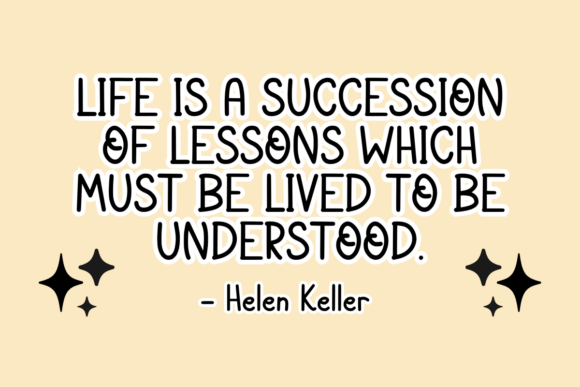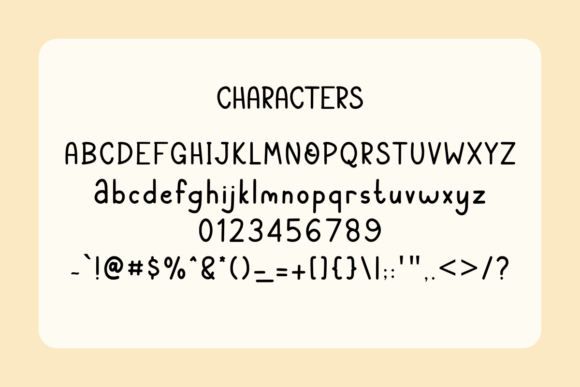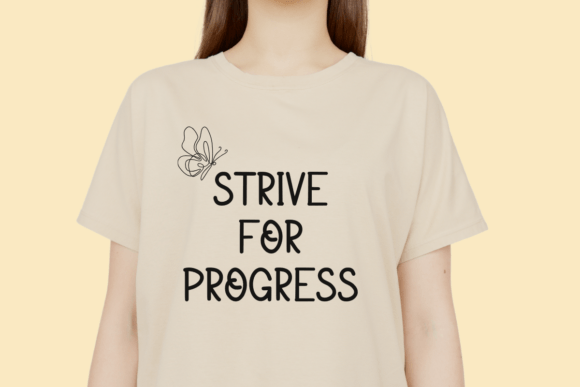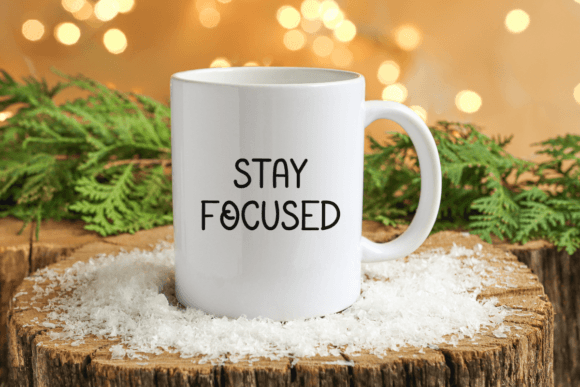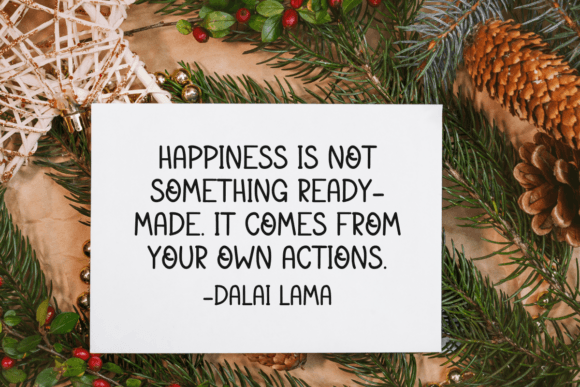
Introducing Custom Jewelry Font: The Perfect Addition to Your Design Projects
Are you a designer, crafter, or DIY enthusiast looking for a unique and playful font to elevate your projects? Look no further than Custom Jewelry Font, a delightful sans-serif font that’s perfect for a wide range of applications. From memos and journals to greeting cards and planners, this font is sure to add a fun and friendly touch to your designs.
What is Custom Jewelry Font?
Custom Jewelry Font is a carefully crafted sans-serif font that’s designed to be both playful and versatile. Its clean lines, rounded edges, and cheerful vibe make it an excellent choice for a variety of projects, including:
- Memos and notes
- Journals and planners
- Scrapbooks and photo albums
- Teacher materials and educational resources
- KDP interiors and printable stationery
- Daily planners and to-do lists
- Workbooks and calendars
- Templates and more!
Why Choose Custom Jewelry Font?
So, what sets Custom Jewelry Font apart from other fonts? Here are just a few reasons why designers and crafters love this font:
- Playful and friendly vibe: Custom Jewelry Font has a lighthearted and approachable feel that’s perfect for creating engaging and interactive designs.
- Highly versatile: This font is suitable for a wide range of projects, from digital designs to print materials.
- Easy to read: The clean lines and simple shapes of Custom Jewelry Font make it easy to read, even at smaller sizes.
- Customizable: With its comprehensive character set and flexible design, Custom Jewelry Font can be tailored to suit your specific needs.
How to Use Custom Jewelry Font in Your Designs
Using Custom Jewelry Font in your designs is easy! Here are a few tips to get you started:
- Pair it with other fonts: Combine Custom Jewelry Font with other fonts to create visually interesting and dynamic designs.
- Experiment with colors and textures: Add depth and interest to your designs with bold colors and textures.
- Use it for headings and titles: Custom Jewelry Font is perfect for headings and titles, adding a pop of personality to your designs.
- Try it in digital and print designs: This font is suitable for both digital and print designs, so feel free to experiment across different mediums.
Whether you’re a seasoned designer or a crafty DIY enthusiast, here are a few tips for getting the most out of Custom Jewelry Font:
- Keep it simple: Don’t be afraid to keep your designs simple and clean, letting the font speak for itself.
- Play with layout and composition: Experiment with different layouts and compositions to create visually interesting designs.
- Add personal touches: Make your designs more personal by adding unique elements, such as illustrations or graphics.
- Have fun!: Most importantly, remember to have fun and enjoy the process of creating with Custom Jewelry Font.
In conclusion, Custom Jewelry Font is a versatile and playful sans-serif font that’s perfect for a wide range of design projects. With its clean lines, rounded edges, and cheerful vibe, this font is sure to add a fun and friendly touch to your designs. Whether you’re a designer, crafter, or DIY enthusiast, Custom Jewelry Font is an excellent choice for anyone looking to elevate their projects and add a personal touch.